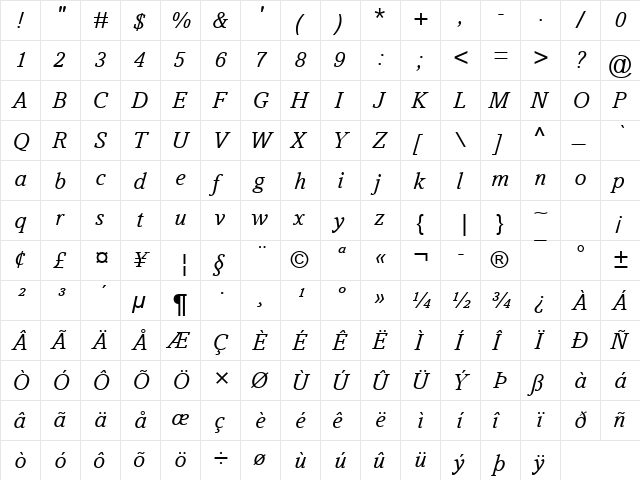
Amasis MT Italic
Design Context for Amasis MT Typeface
Amasis MT is a composed and adaptable typeface that performs quietly and consistently across a wide range of design contexts. The dynamic lean of this cut emphasises speed and emphasis in any layout.
Pro Tip: Try Amasis MT for annotation and caption copy alongside an upright companion — the contrast in angle creates a dynamic but ordered typographic system.